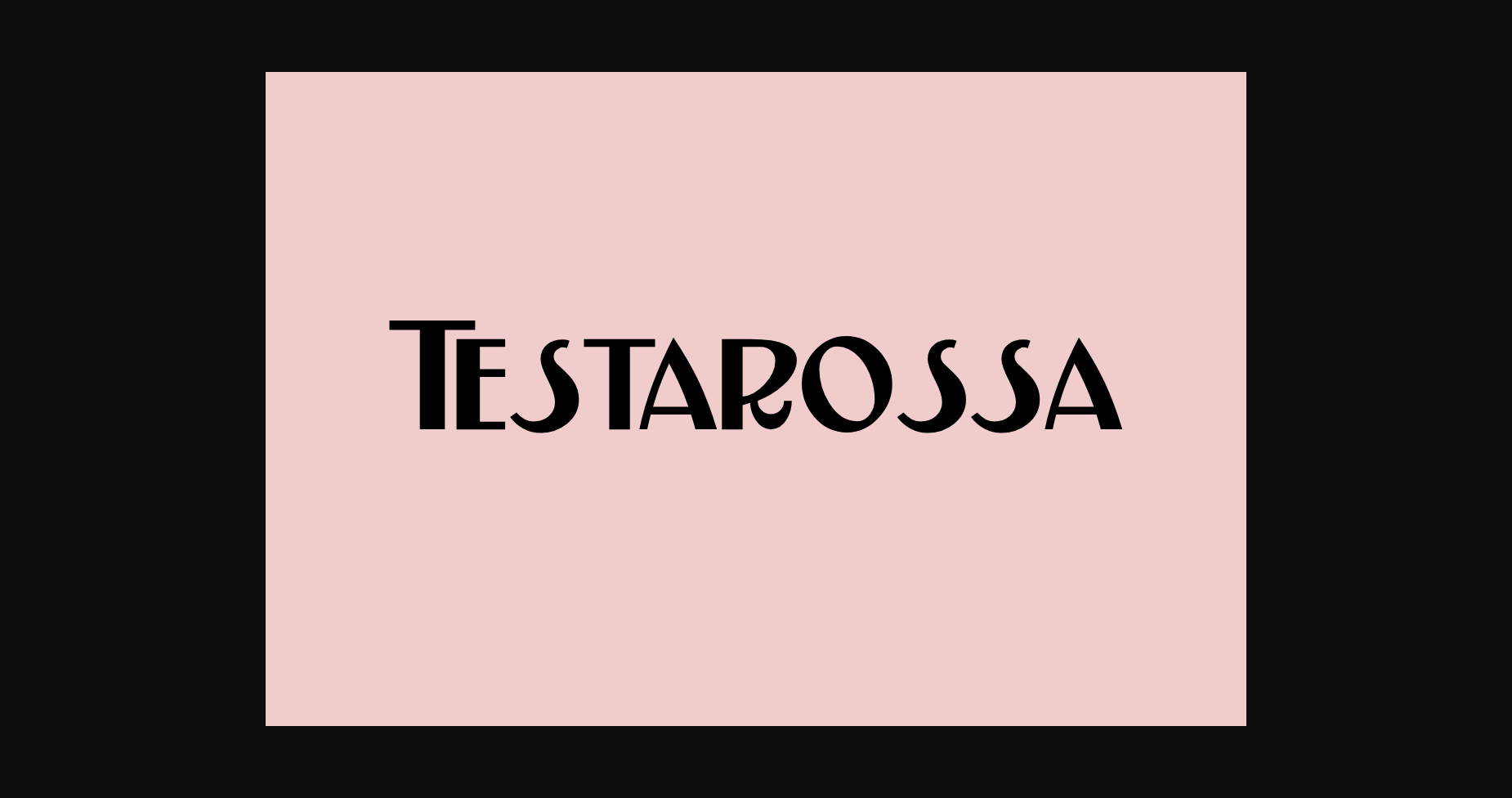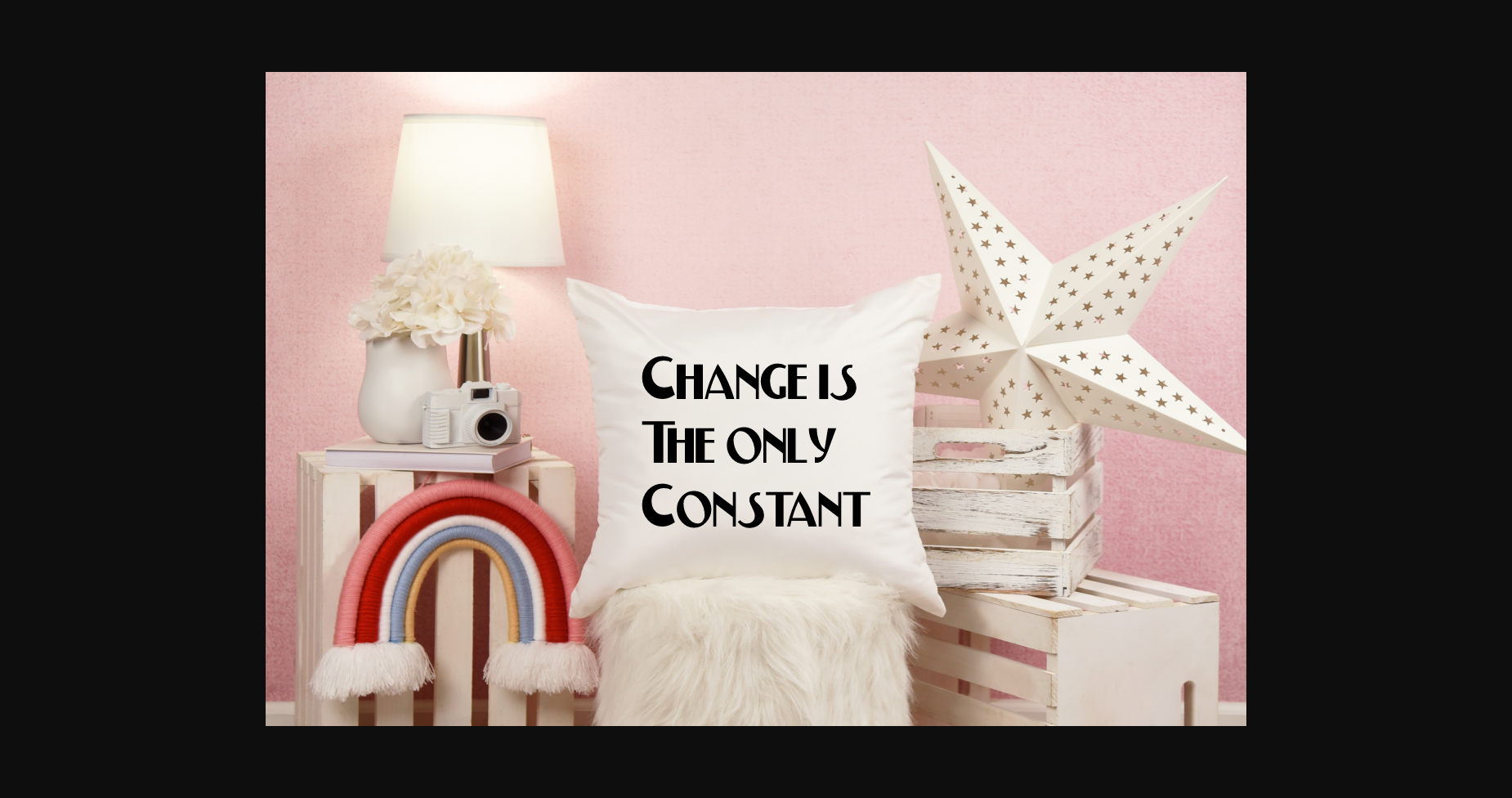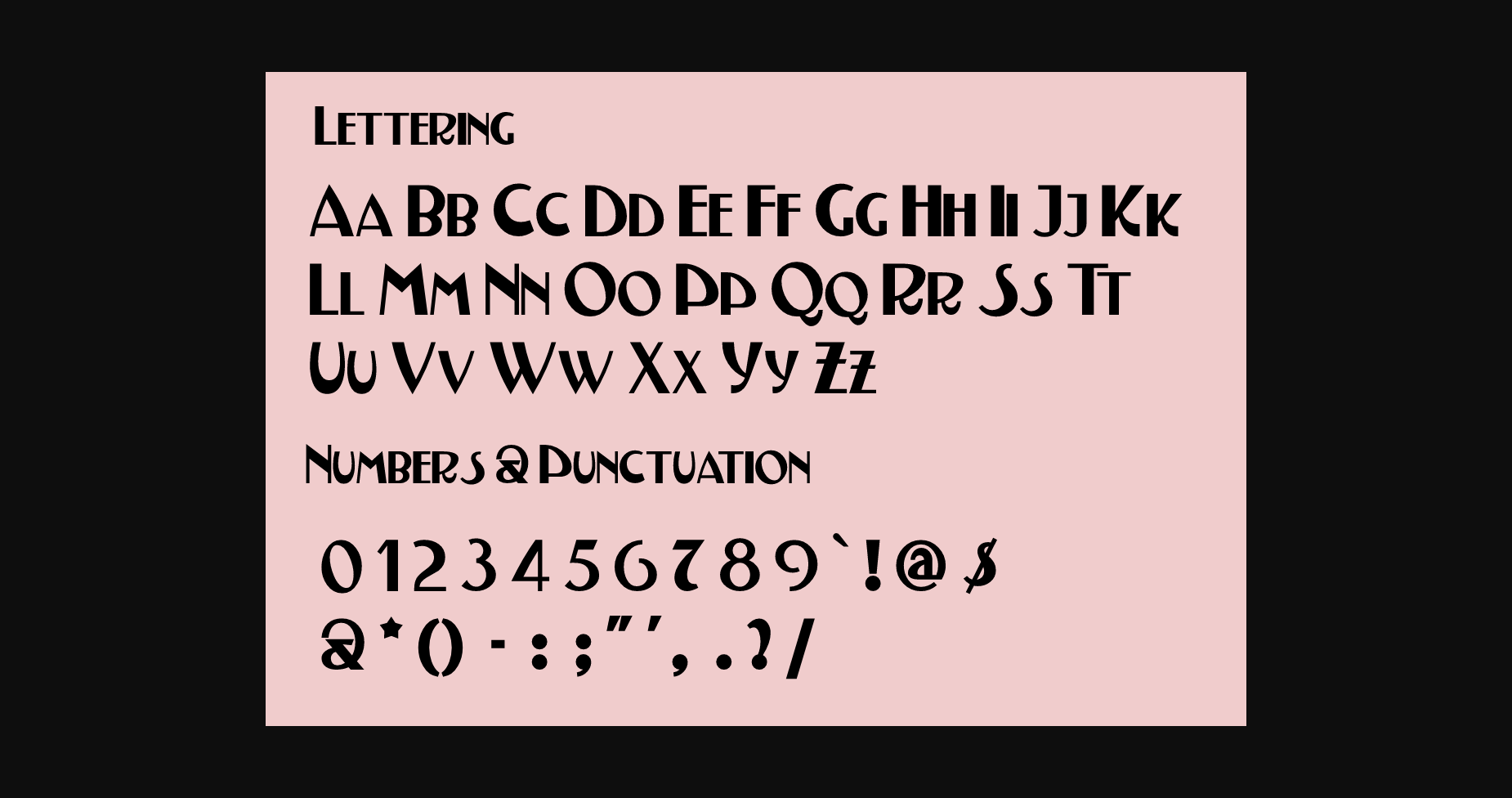
About Testarossa Font
Testarossa is a clean and beautiful sans serif font. Bring your creative ideas to life with this fun and curvy set of characters! You can use it for headlines, magazines, posters, brochures, websites, and more.
Created by Nick Curtis